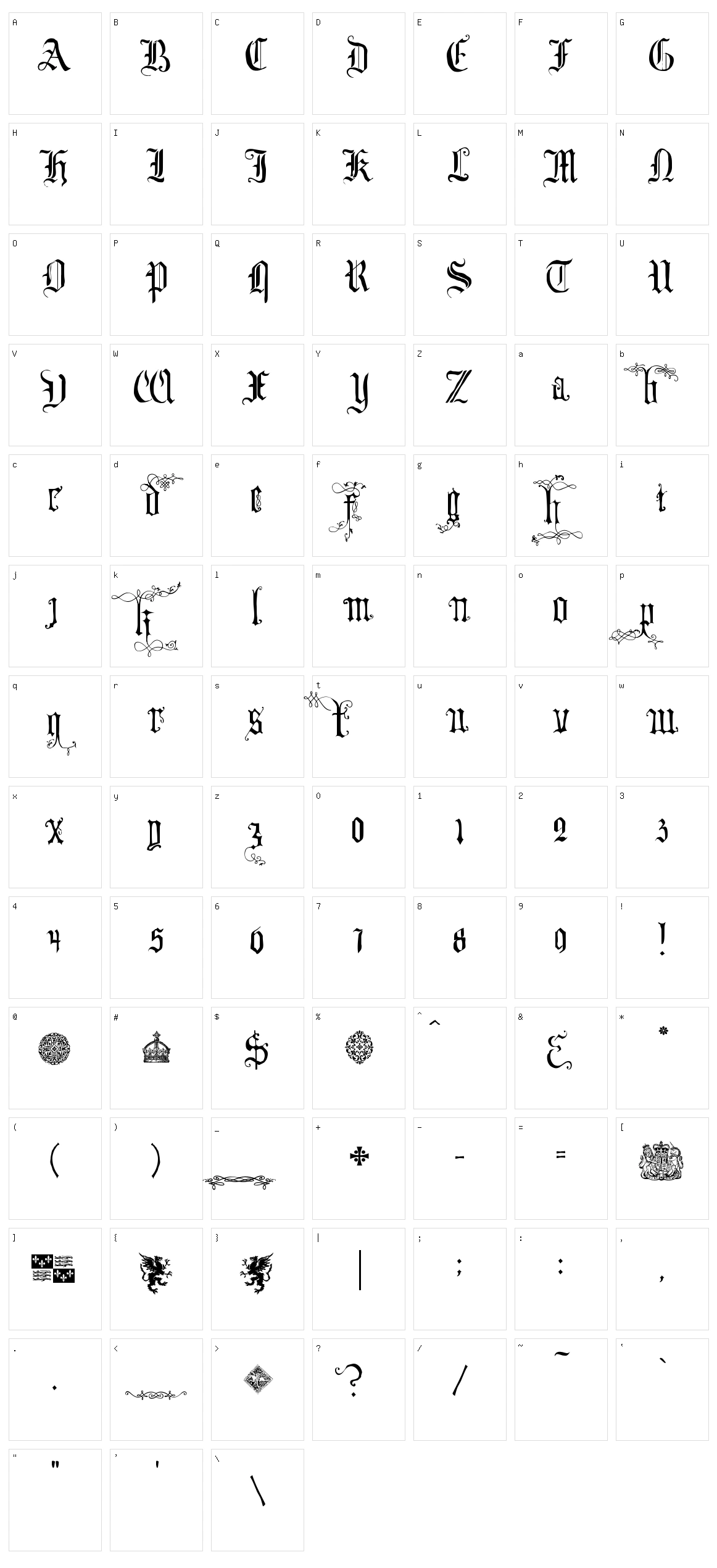
Your Royal Majesty
Category: Medieval & Gothic
basic puntucation is present, most of the rest is replaced by symbols, crests, flags, crowns, and several other decorative graphics throughout the era. There are actually two different
versions: "Your Royal Highness" is similar but omits pretty much 99% of the decorative lines found on the lowercase ascenders and descenders and contains full punctuation. This version is only